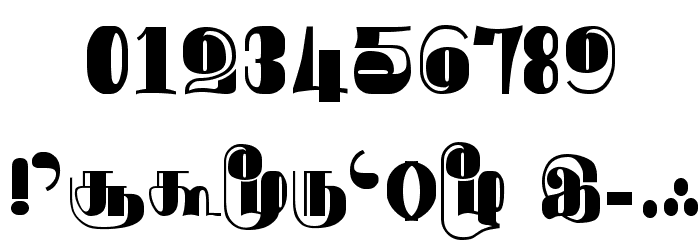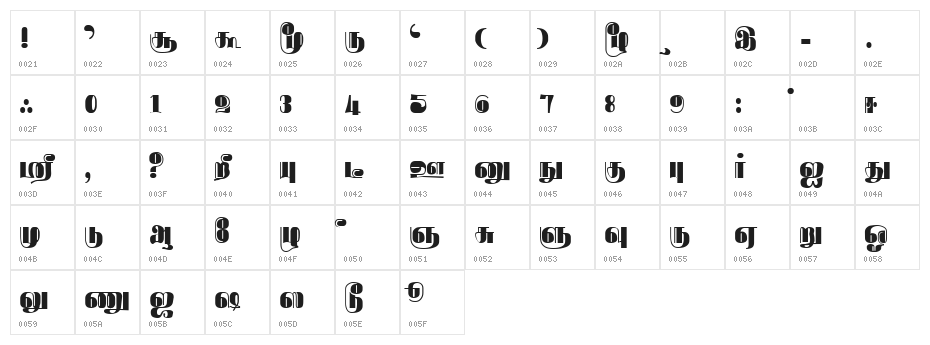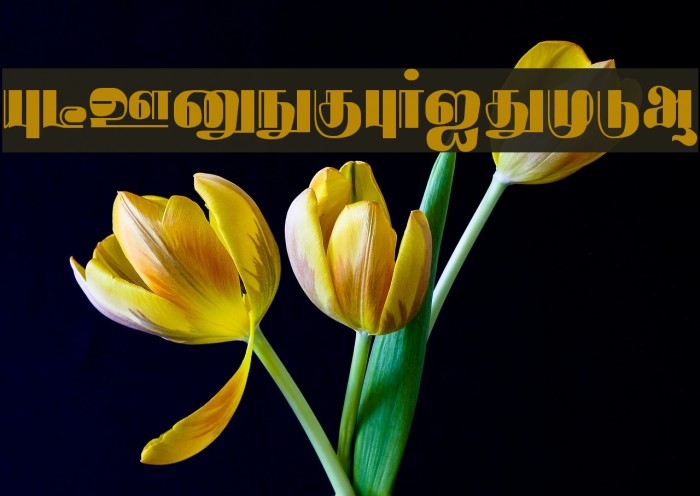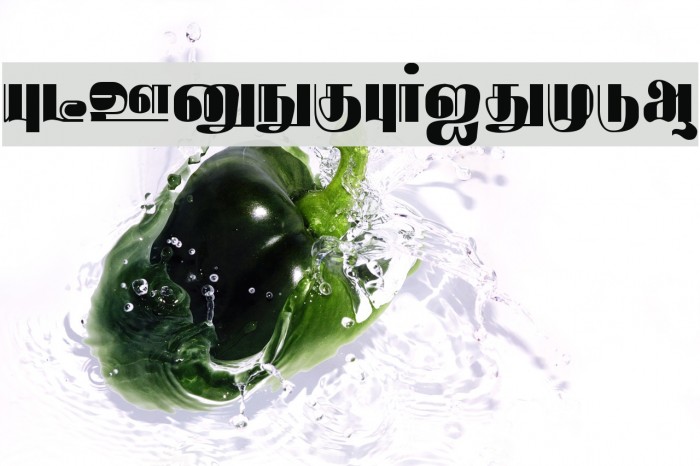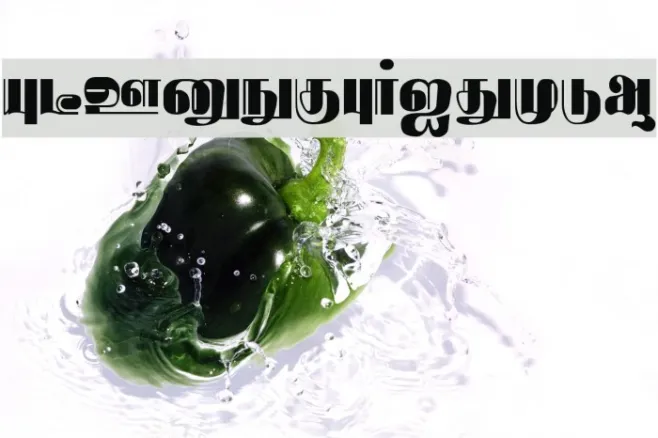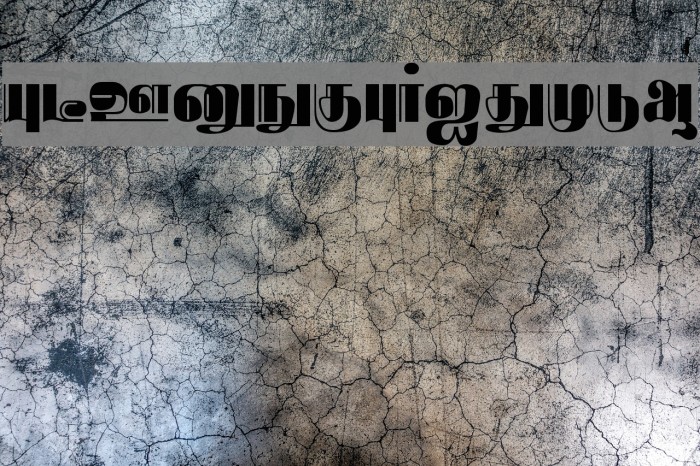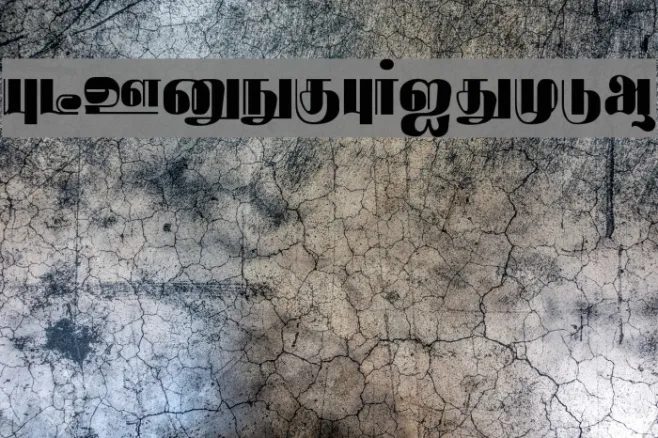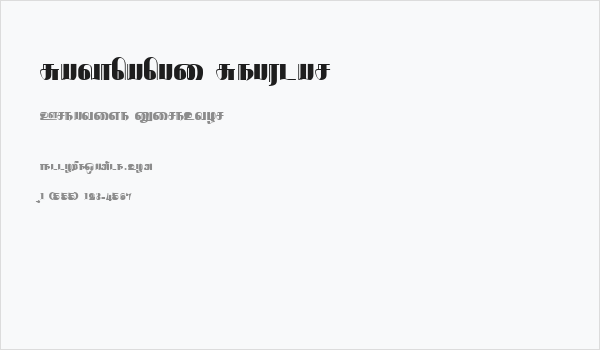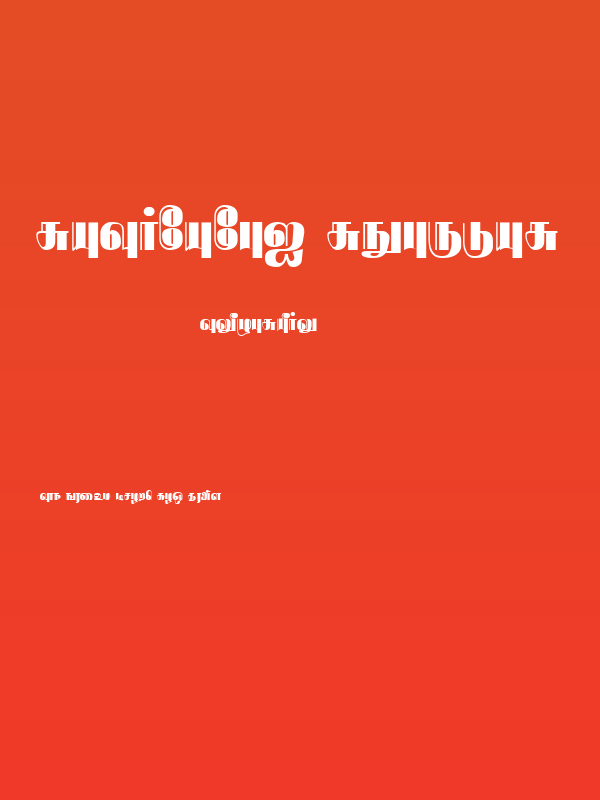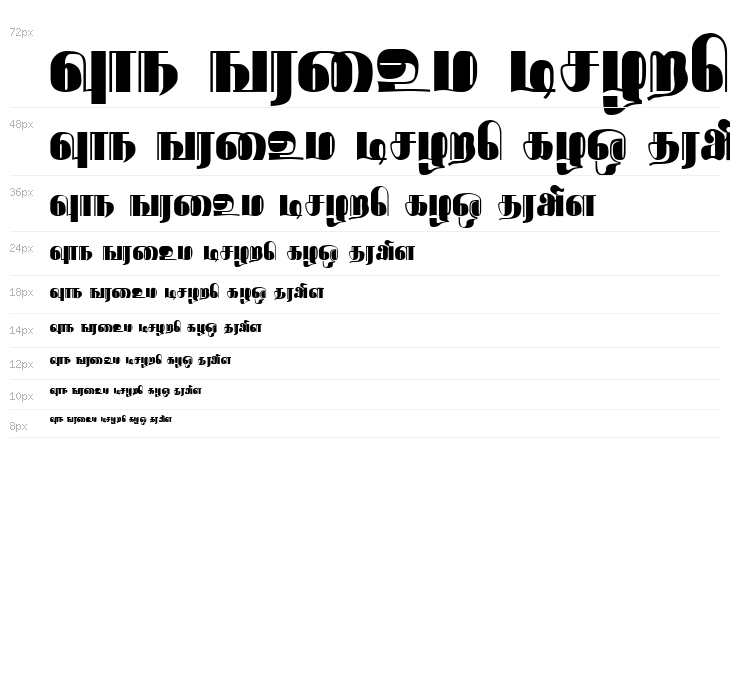
Rathnangi Regular Font
Rathnangi Regular Description
This font features a bold and striking design with high contrast between thick and thin strokes, giving it a dramatic and impactful appearance. The characters are wide and have a strong presence, making them ideal for attention-grabbing headlines or titles. The style is reminiscent of traditional serif fonts but with a modern twist, incorporating unique curves and flourishes that add a decorative touch. The numbers and special characters maintain the same boldness and style, ensuring consistency across all elements.